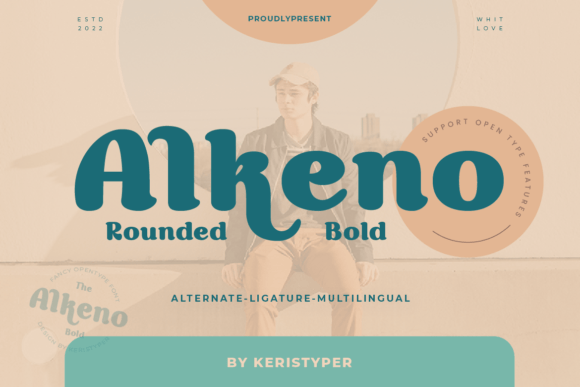
Introducing Alkeno – the display font that will ignite your creative spark!
Alkeno's captivating curves and bold presence are an irresistible combination, exuding an aura of sophisticated elegance. Its essence whispers tales of vintage charm, making it the perfect choice for capturing attention in all your design endeavors.
Step into a world of limitless possibilities with Alkeno. Effortlessly craft stunning logos that command attention, leaving an unforgettable impression on your audience. Let your social media posts dance with captivating headlines that entice followers to engage.
Alkeno's versatility knows no bounds. Whether you're crafting gripping movie titles that pique curiosity or designing book covers that promise an enchanting journey, its bold strokes will elevate your creations to new heights.
But what truly sets Alkeno apart is its versatility. Pair it with a delicate script, a clean sans-serif, or a timeless serif font to create harmonious designs that captivate and inspire. Its seamless integration ensures that your creations will radiate elegance and sophistication.
Experience the magic of Alkeno today and unlock the power to transform your designs into masterpieces. Its user-friendly PUA encoding empowers you to effortlessly access a world of glyphs and swashes, empowering you to unleash your creativity like never before.